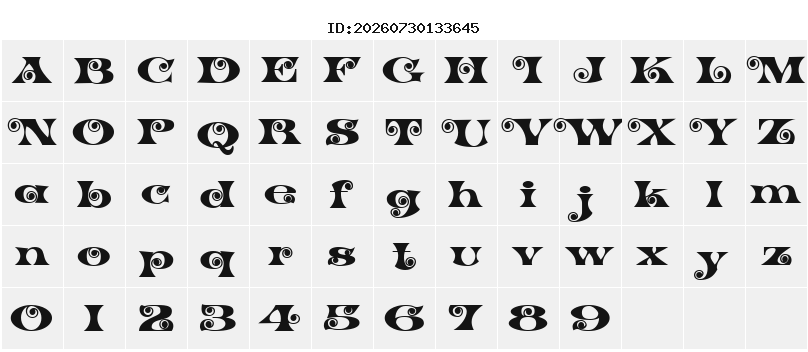
• Font Name: K22 Spiral Swash
• Full Font Name: K22 Spiral Swash
• Designer: Toto
• Manufacturer: Toto
• Description: K22 Spiral Swash is based on Spiral Swash from Swash Letter Alphabets by Dan X. Solo. Toto Ika-2 ng Setyembre 2010